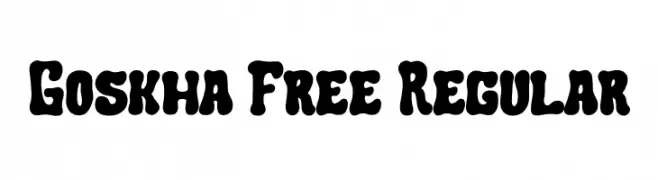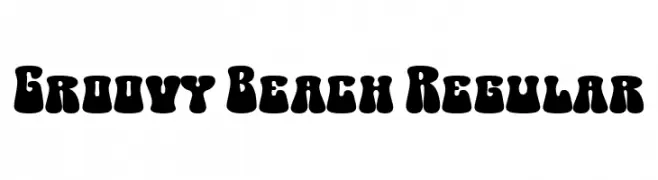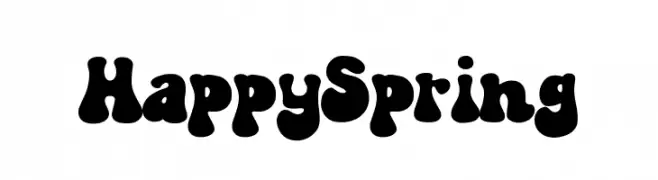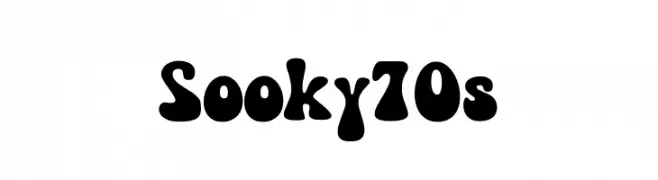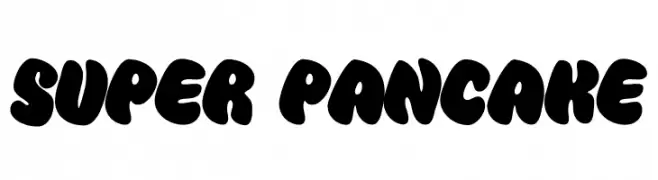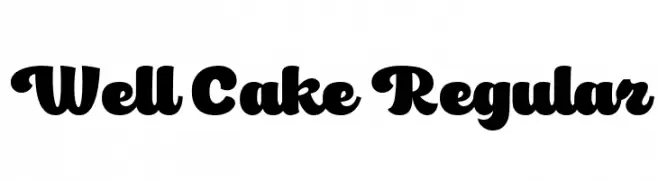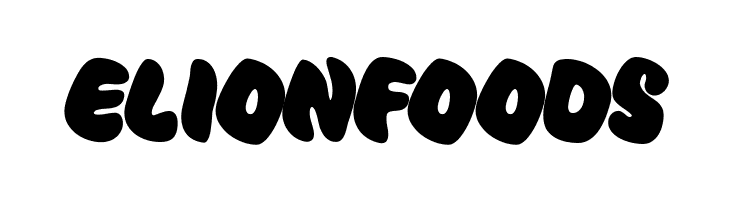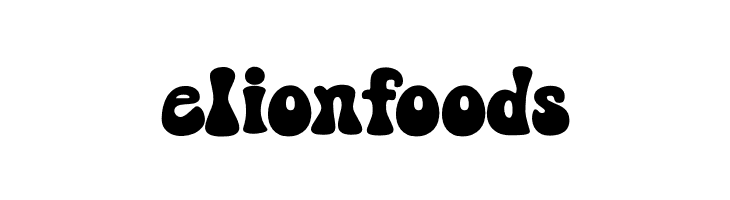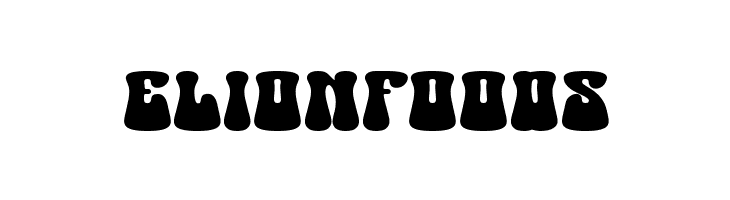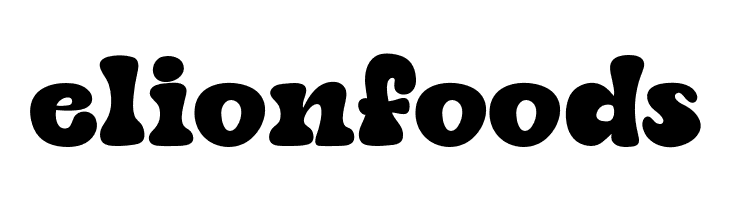
( Fonts by fsuarez913 )
A playful, bold font with rounded, bubbly characters perfect for fun and whimsical designs.
( Fonts by Muhammad Yafinuha )
A bold, playful font with rounded, bubbly characters.
( Fonts by Excellent Ritma Florendia )
A bold, playful font with a retro 70s vibe and rounded, bubbly characters.
( Fonts by Bangkit Tri Setiadi )
A bold, retro-inspired font with a playful, bubbly design.
( Fonts by Maulana Creative )
A bold, playful font with rounded, bubbly characters ideal for retro or whimsical designs.
( Fonts by Jimtype Studio )
A bold, retro font with rounded, bubbly letterforms.
( Fonts by Alit Design )
A playful, bold font with a bubbly, retro style.
( Fonts by Type on Studio )
A playful, bold font with rounded, bubbly characters and a whimsical style.
( Fonts by Sign Studio )
A playful and bold font with rounded, bubbly characters.
( Fonts by Hoperative )
A bold, playful font with rounded edges and a bubbly appearance.